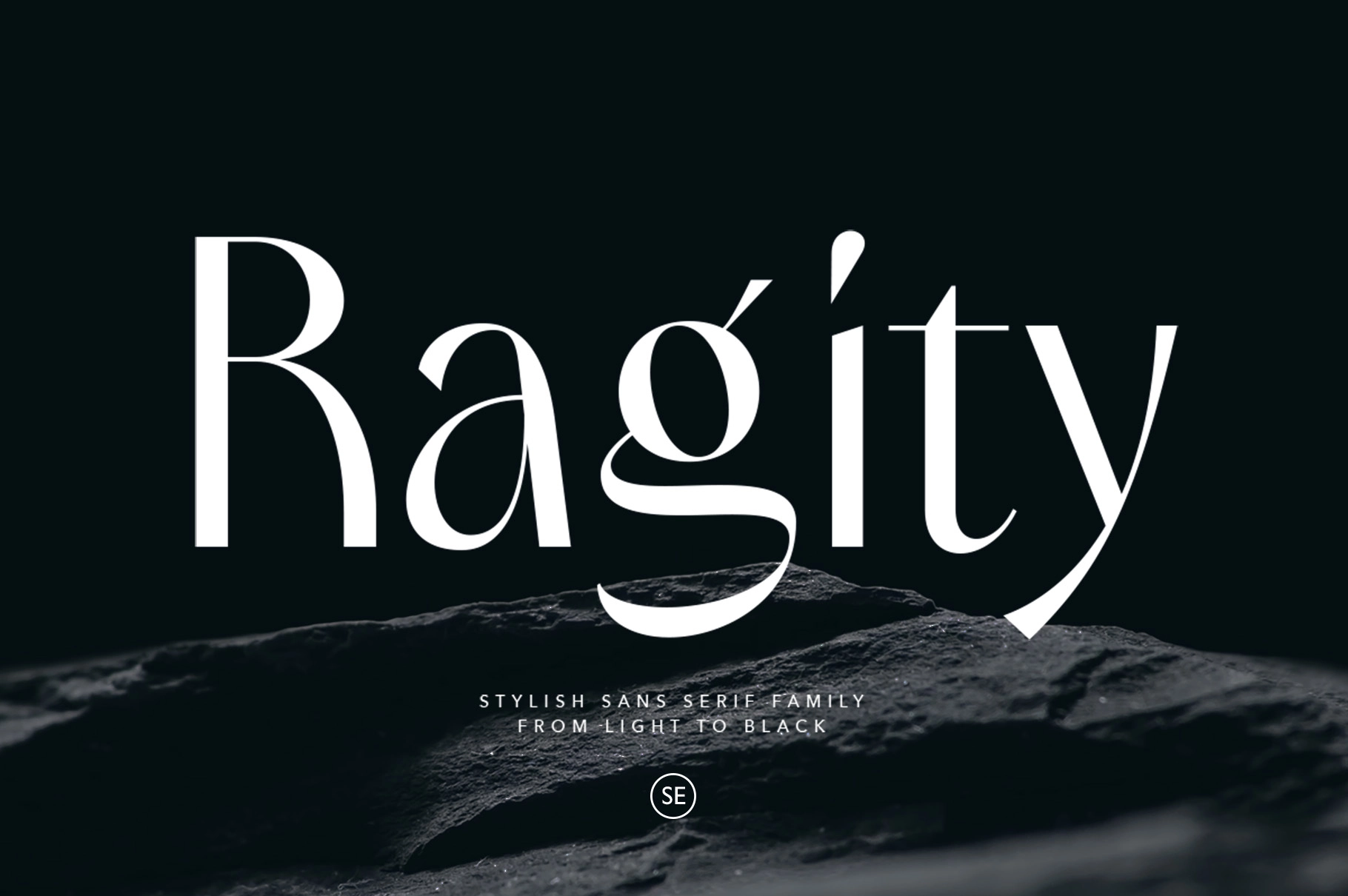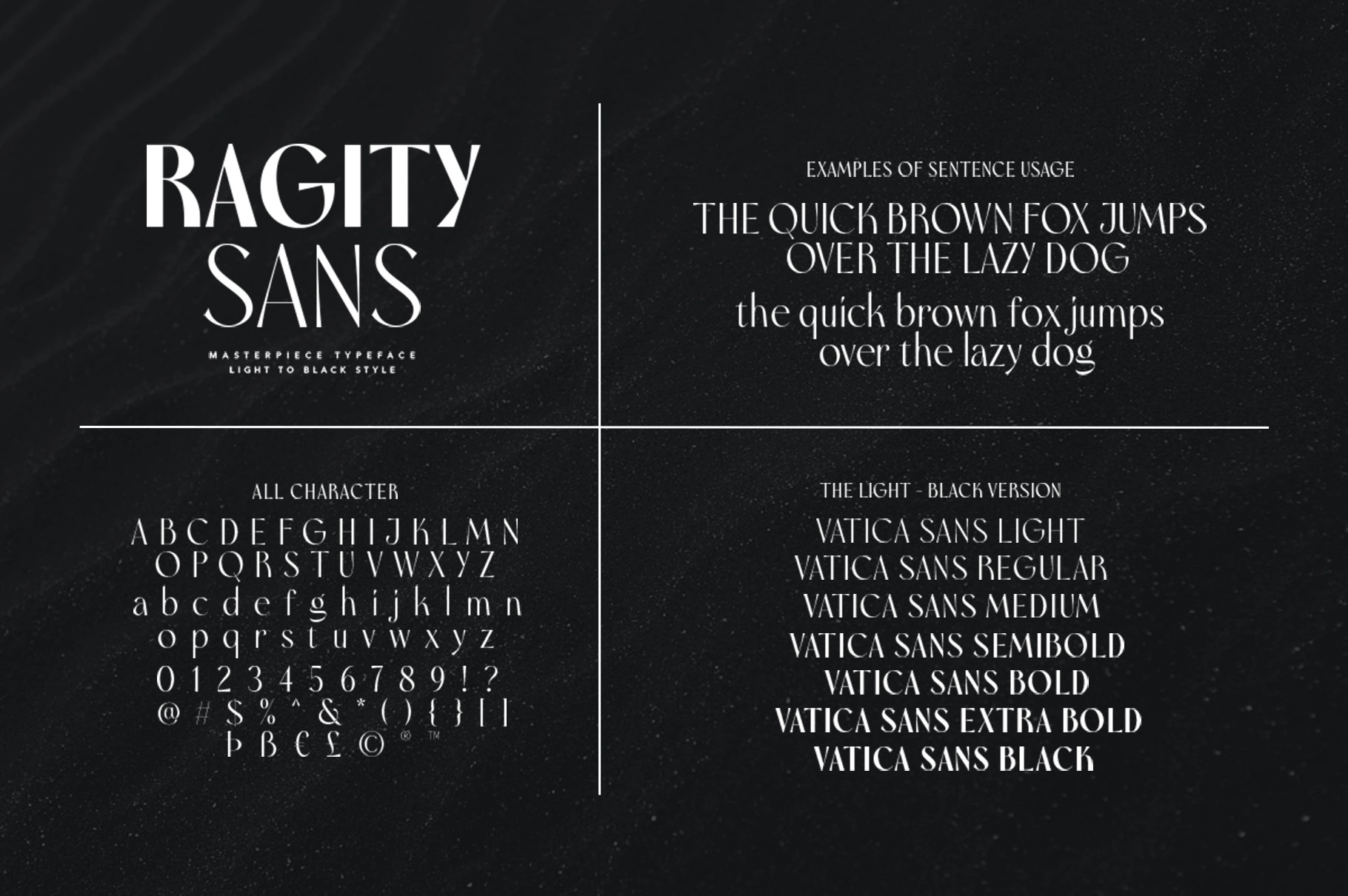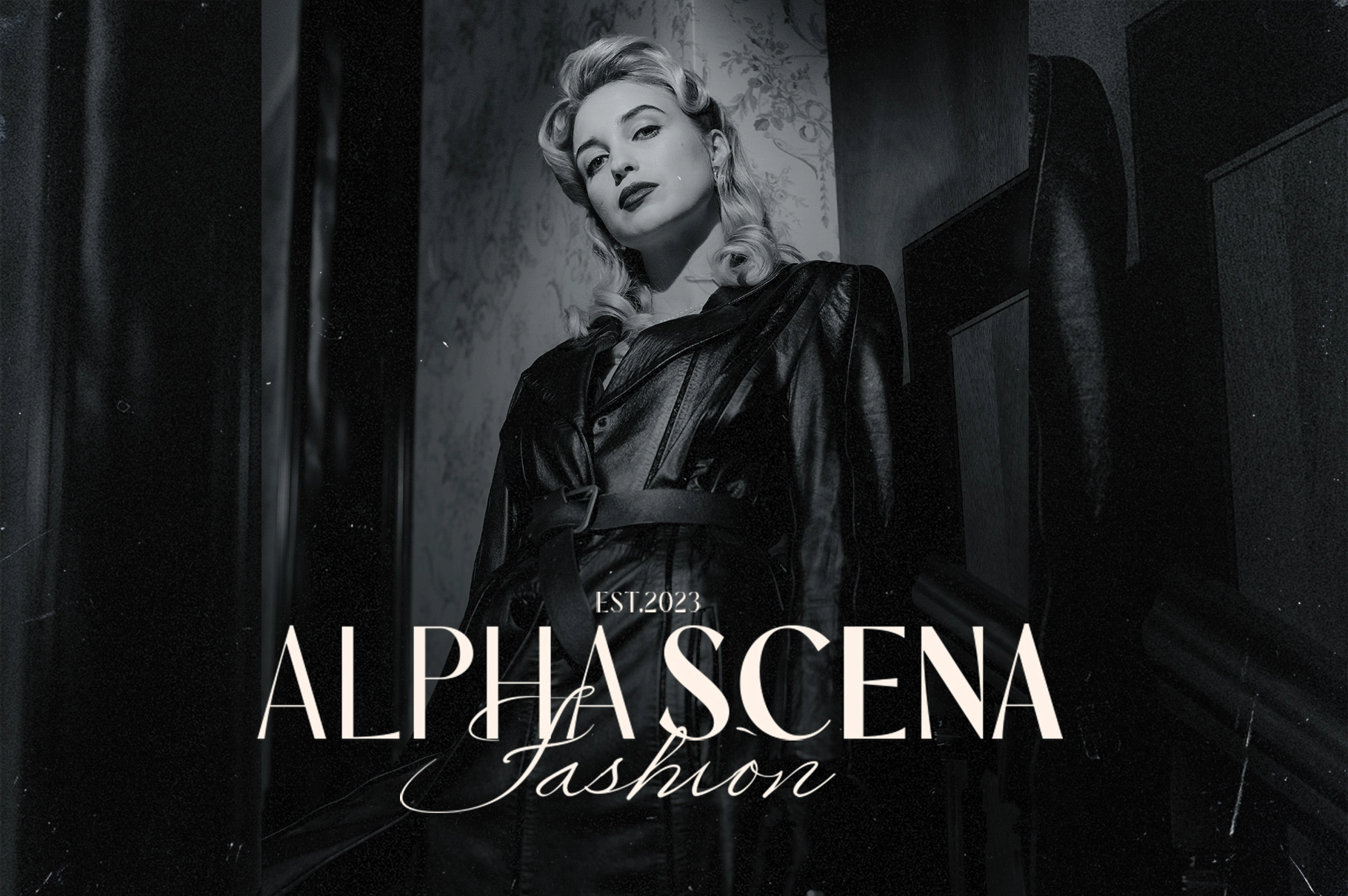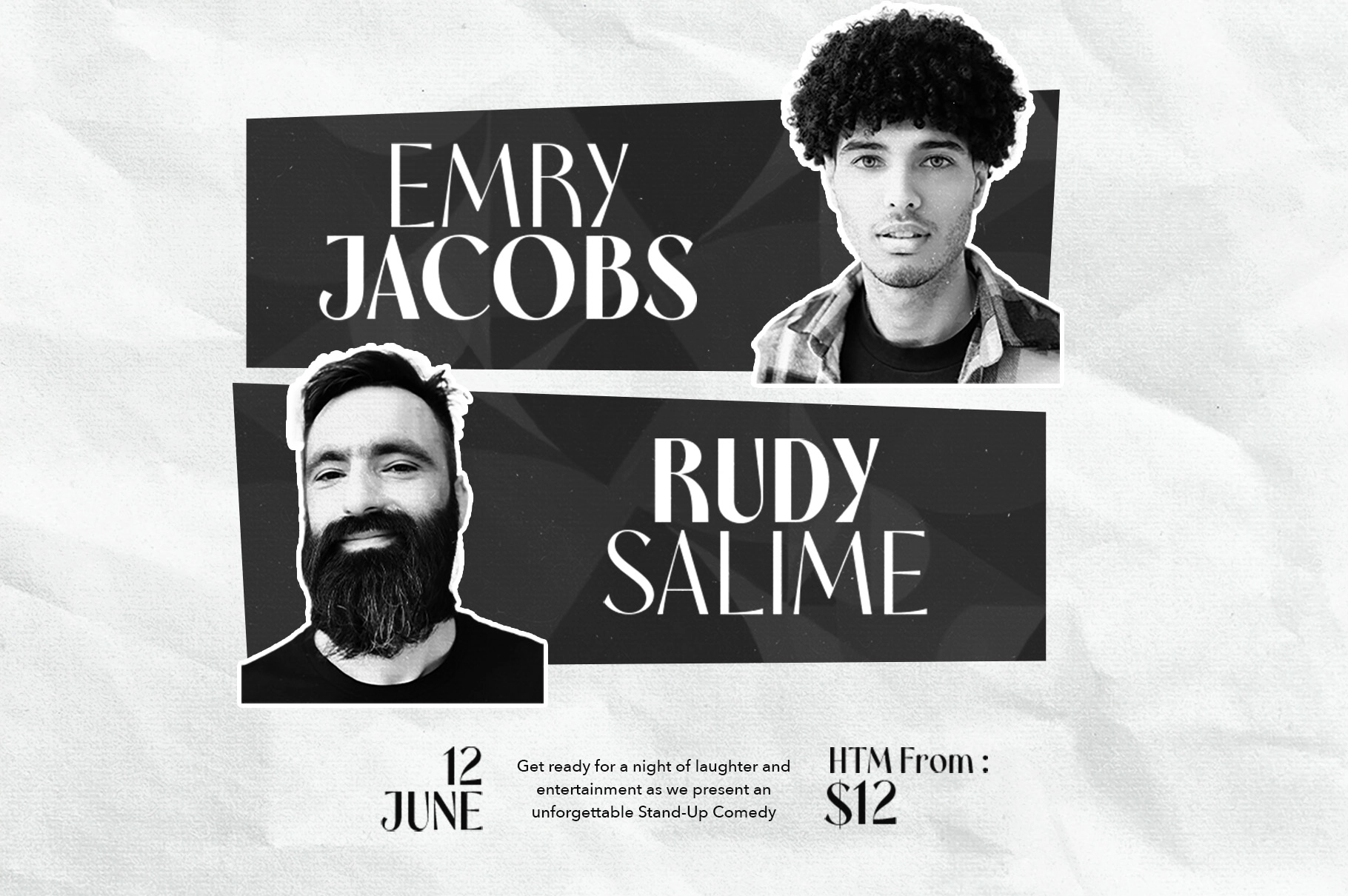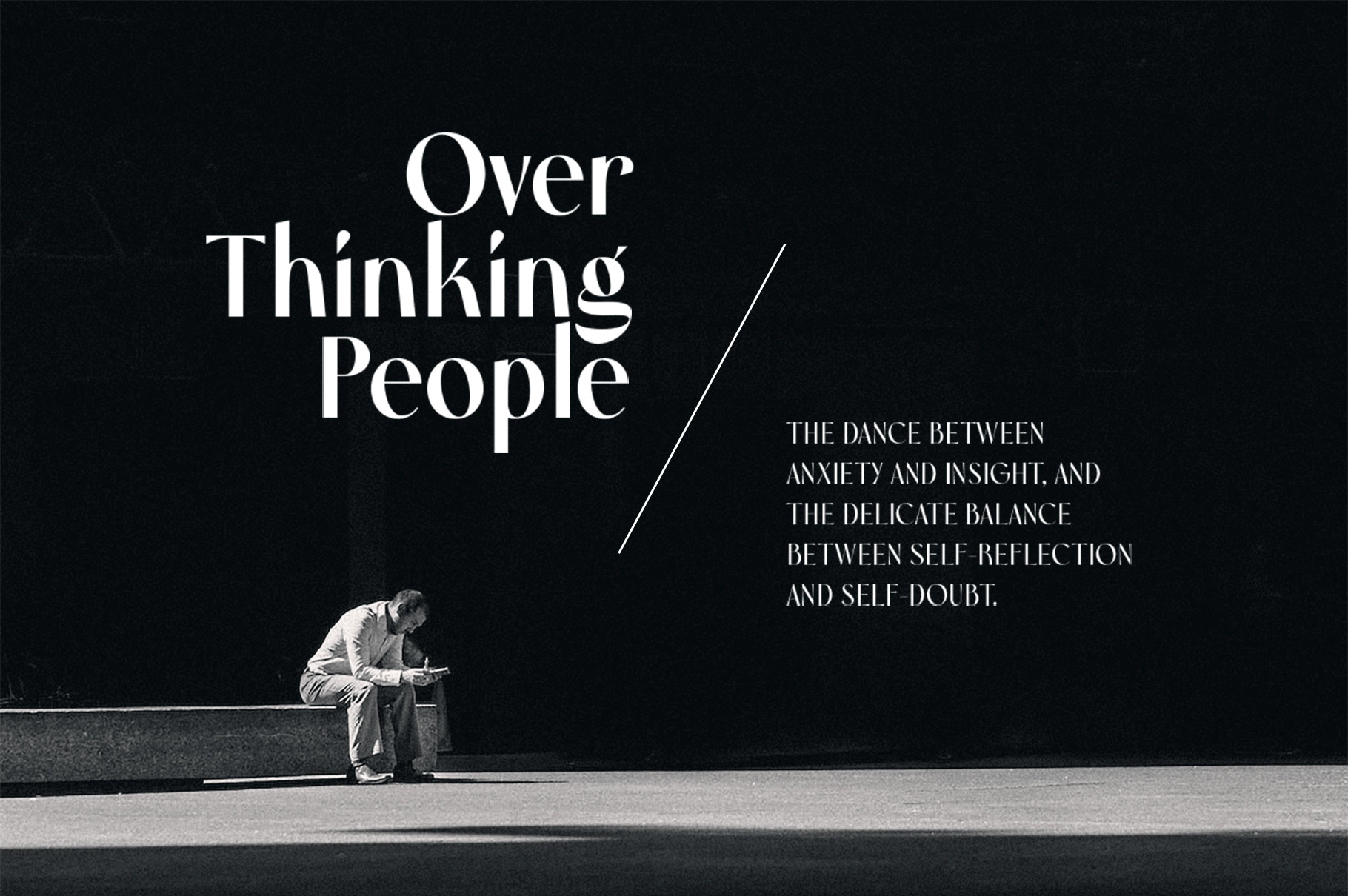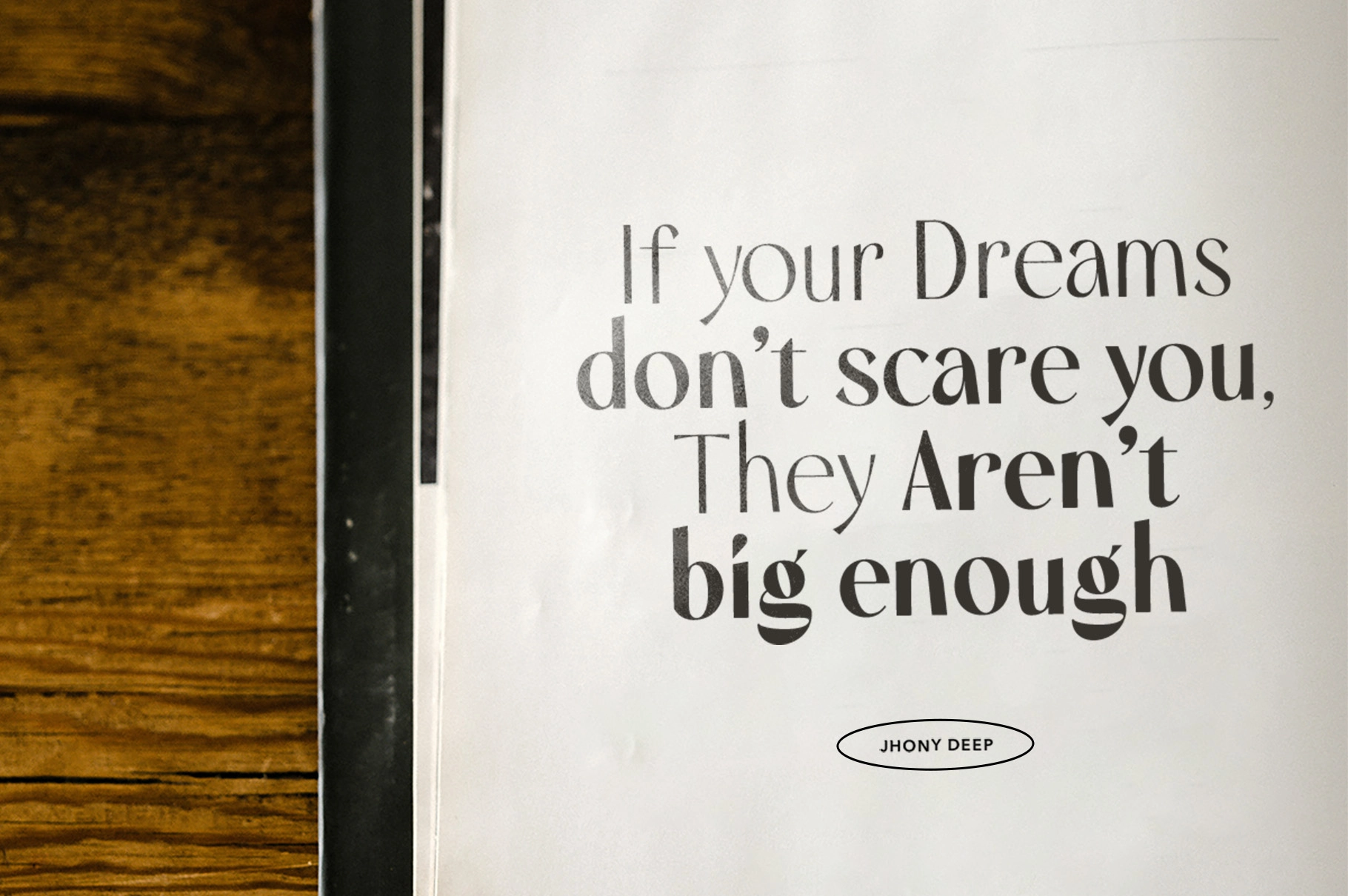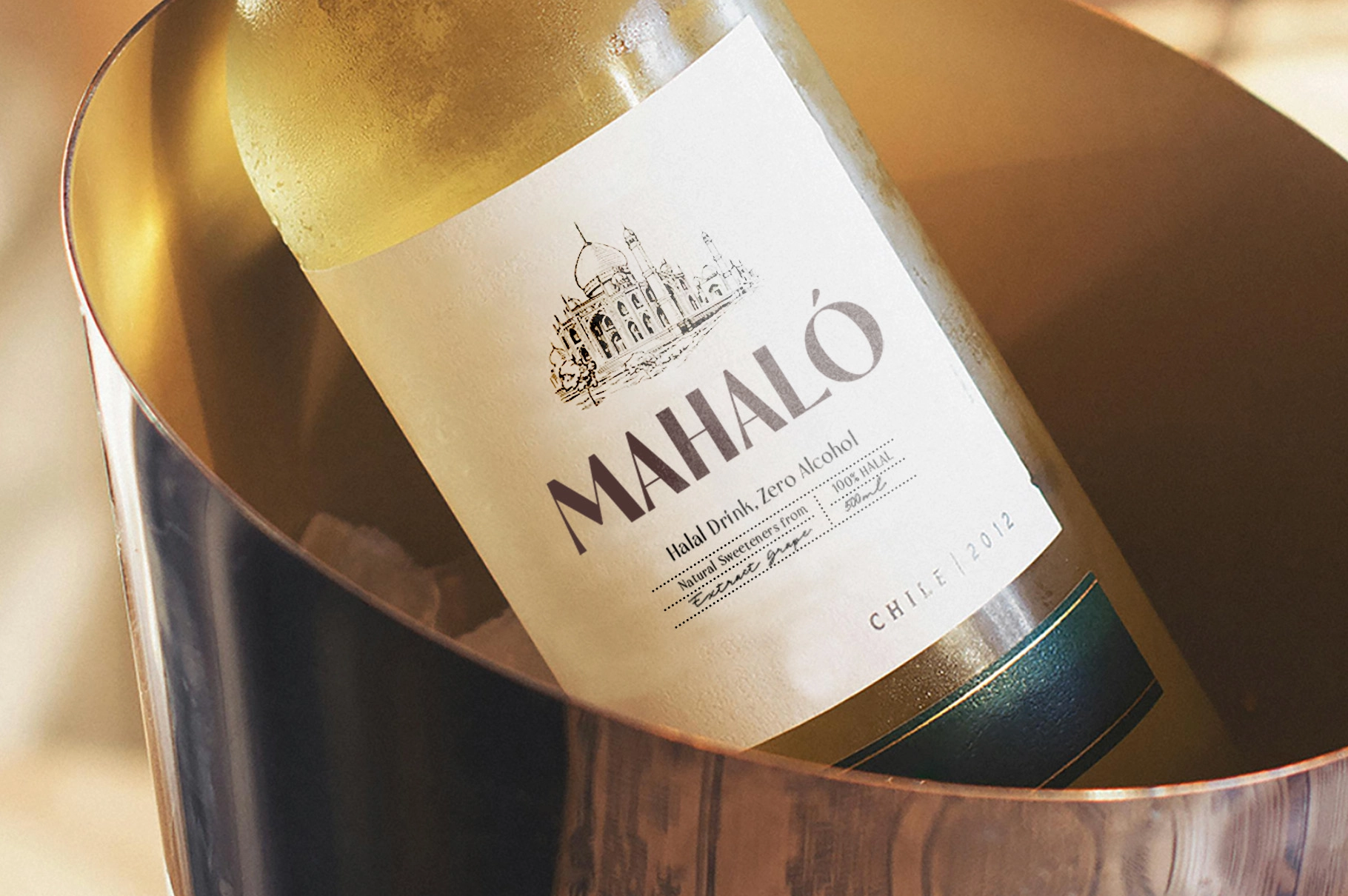
Ragity - Stylish Sans Font Family
This elegant sans serif font pairs clean structure with sharp fashion-style details. Its high-contrast cuts, narrow rhythm, and polished curves give layouts a refined editorial look, while the full weight range keeps it practical for both quiet text and dramatic headlines.
Ragity is made for wedding invitations, boutique logos, quote posters, beauty branding, fashion editorials, packaging, social media graphics, magazine layouts, luxury labels, stationery, web headers, and brand systems that need graceful type with a confident edge.
- 7 weights: Light - Black
- Numerals & Punctuation